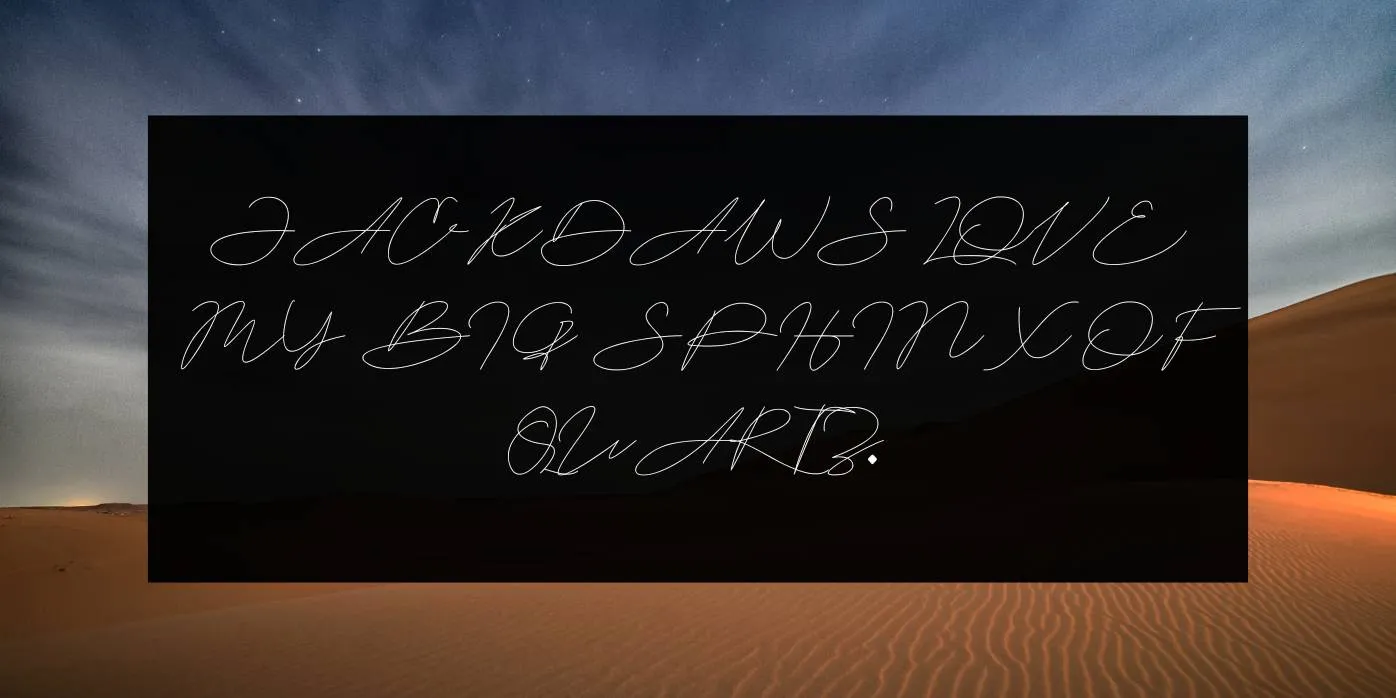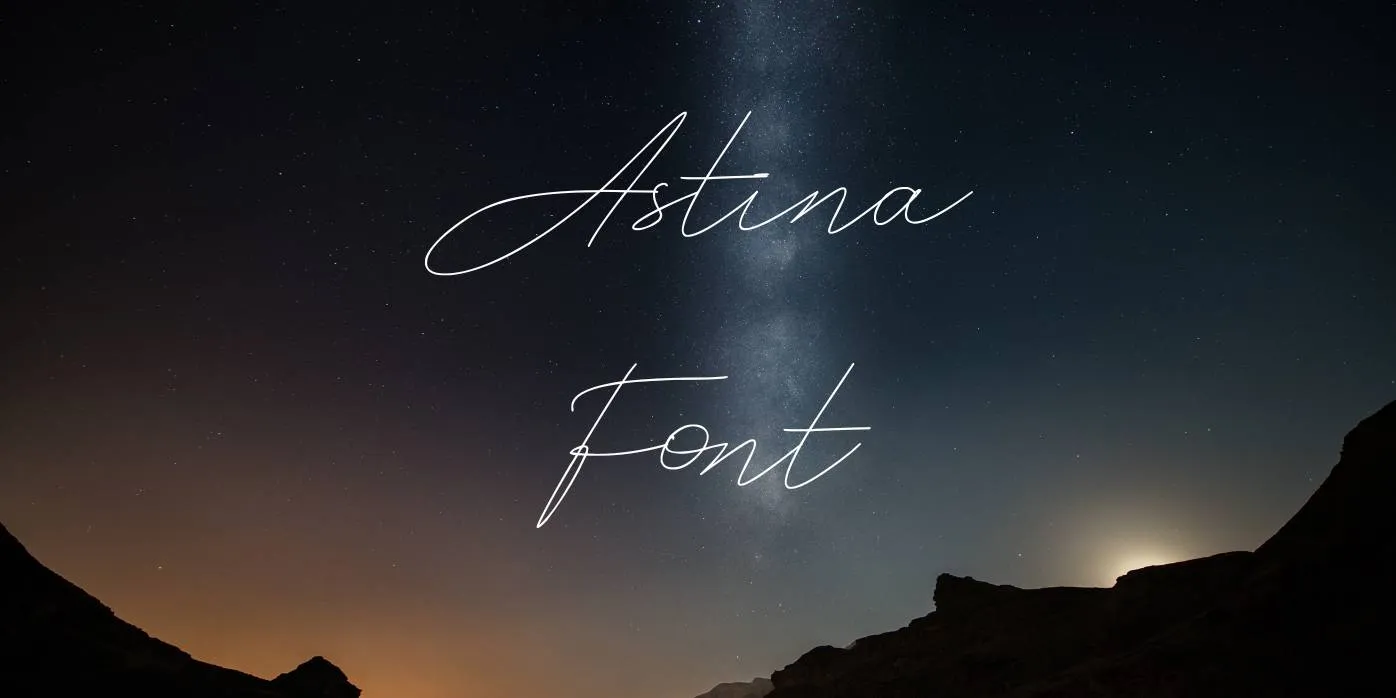
Astina Font
Astina Font is a calligraphy typeface with stylish and attention-catching characters. Rochart Studio designed this typeface. The font that looks good for pairing with this typeface is the vienetta font. On the basis of wonderful similarities and variances, this texture is fantastic.